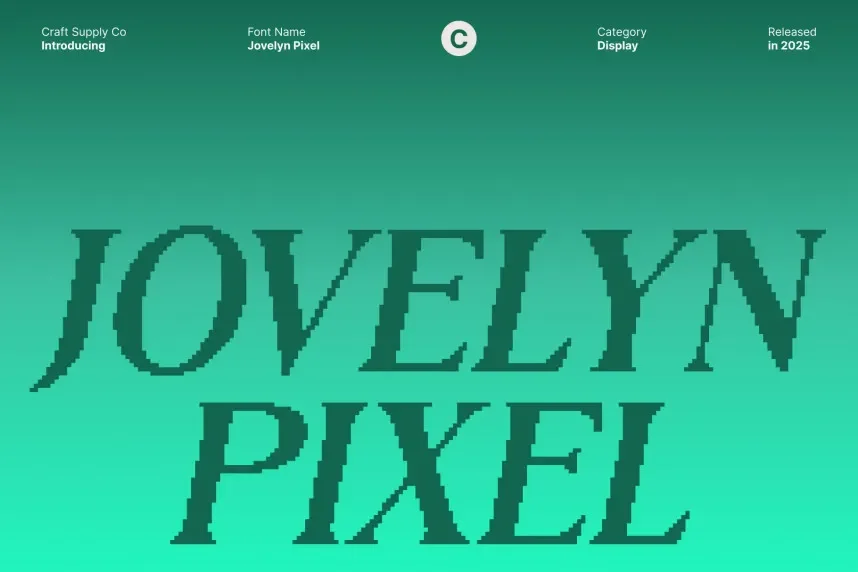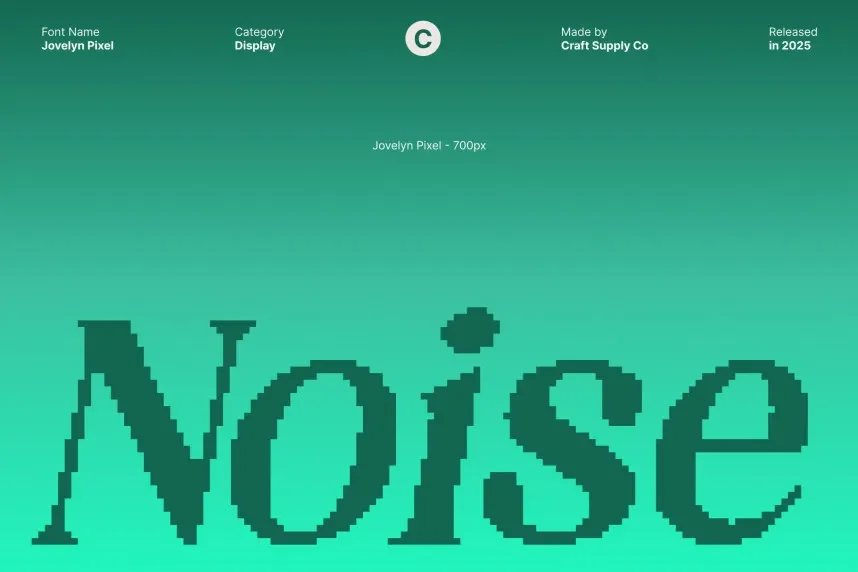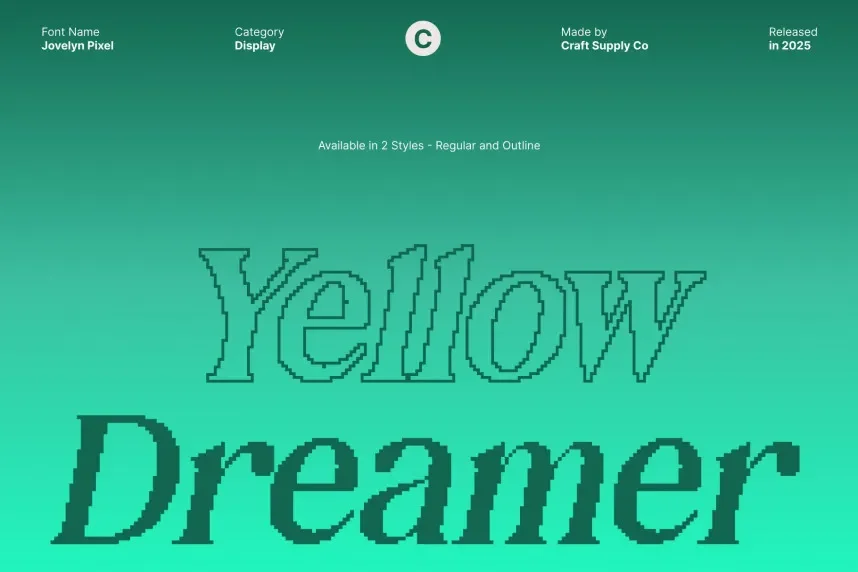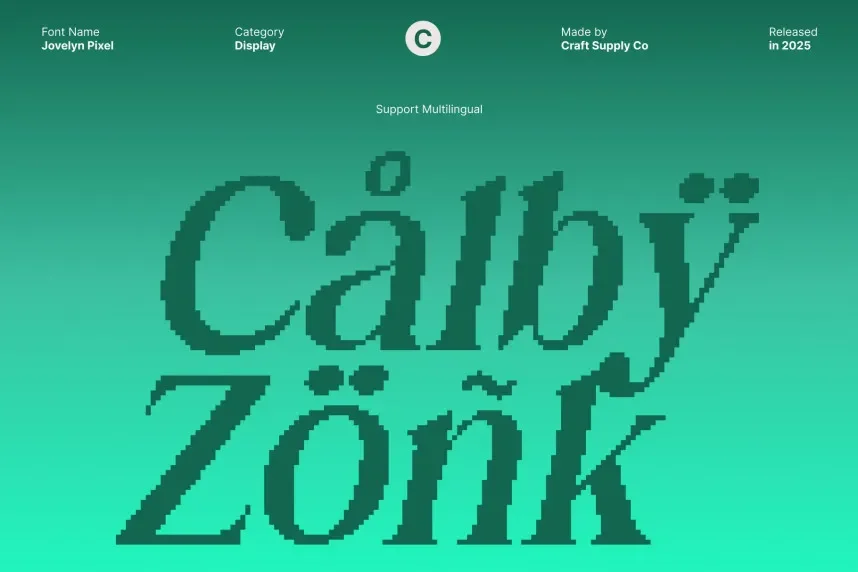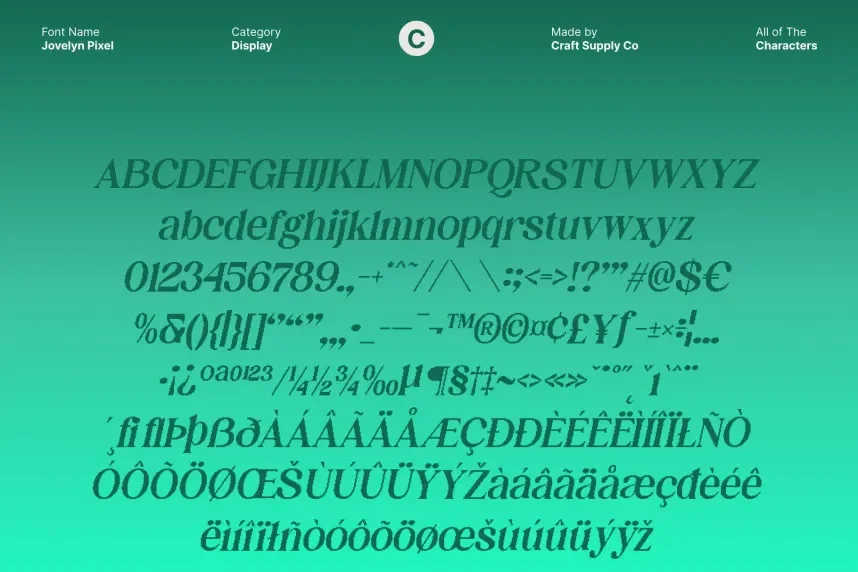
Jovelyn Pixel Font is a versatile pixel-based font that offers sharp, clean edges with a modern digital feel. It is perfect for applications in technology, gaming interfaces, and branding projects where a strong, retro-inspired aesthetic is required.